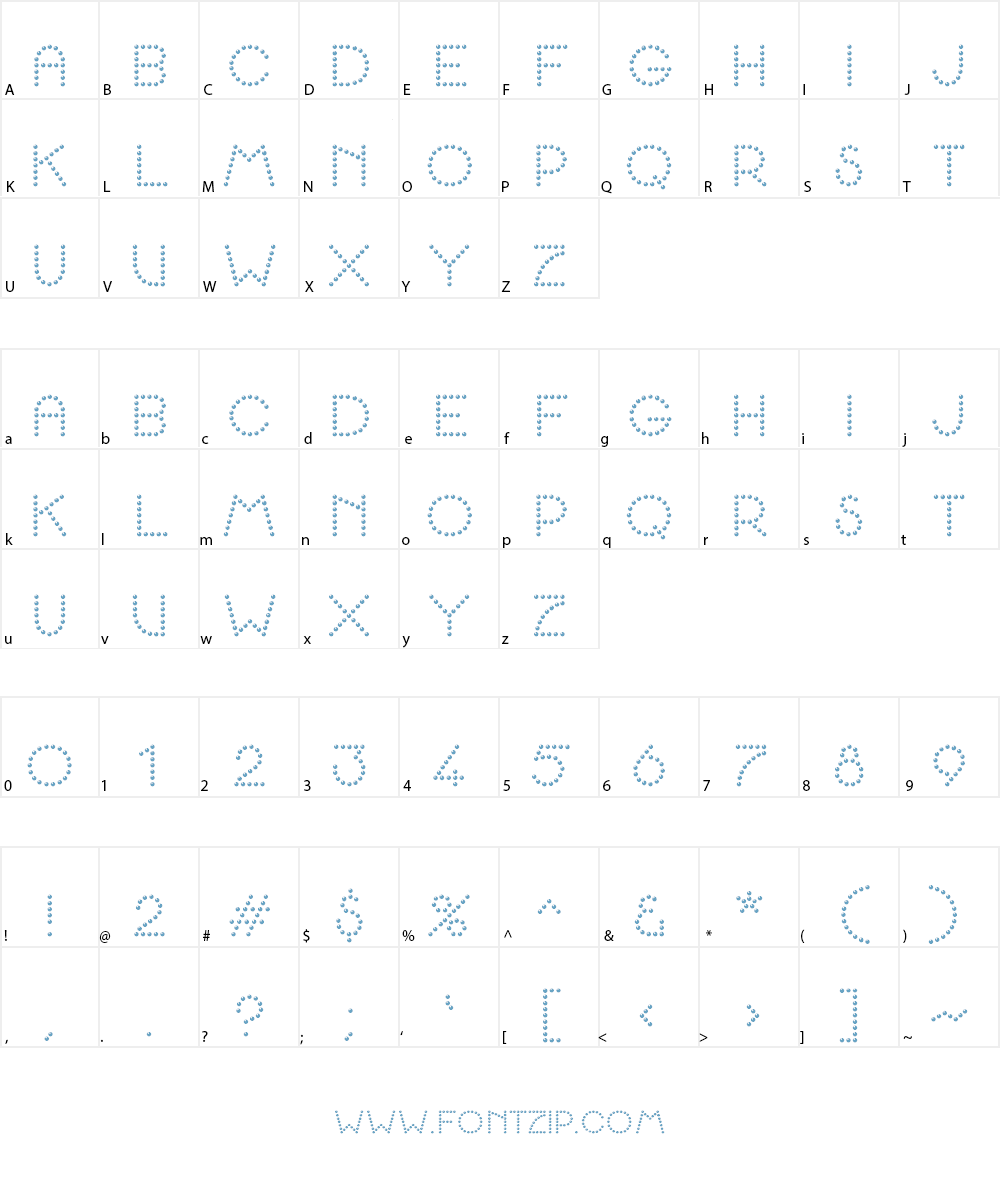
Use font in large point sizes, preferably over 100 pts., to make the highlight (small dot inside the circles) visible.
Font now contains Cyrillic characters (Basic Russian Alphabet)